If you’re looking for the most extreme Black Metal fonts to create brutal album art, merchandise, posters, and heavy branding, you’re in the right place. Black Metal fonts deliver raw aggression, chaotic visuals, and a dark aesthetic that’s perfect for extreme design projects.
Below is our curated list of the Top 10 Black Metal Fonts in 2025, ranked from #10 down to #1, with each font fully described and ready to elevate your designs.
10. Mortal Reign | Dragonic Black Metal Font
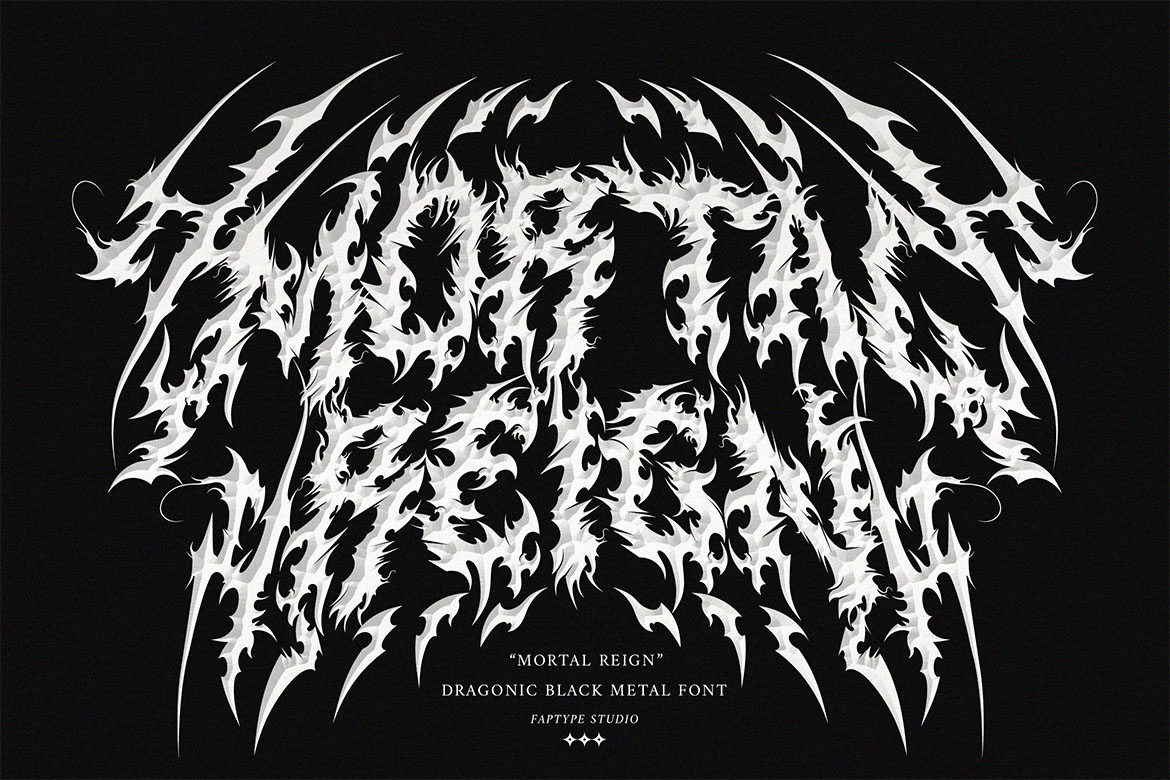
Mortal Reign roars with ferocity and mythic power. Its jagged, dragon-inspired letterforms bring legendary dark vibes to album covers, gothic merchandise, and fantasy metal branding.
Best for: Album covers, gothic merch, fantasy band branding.
9. Sunfyre | Brutal Black Metal Font
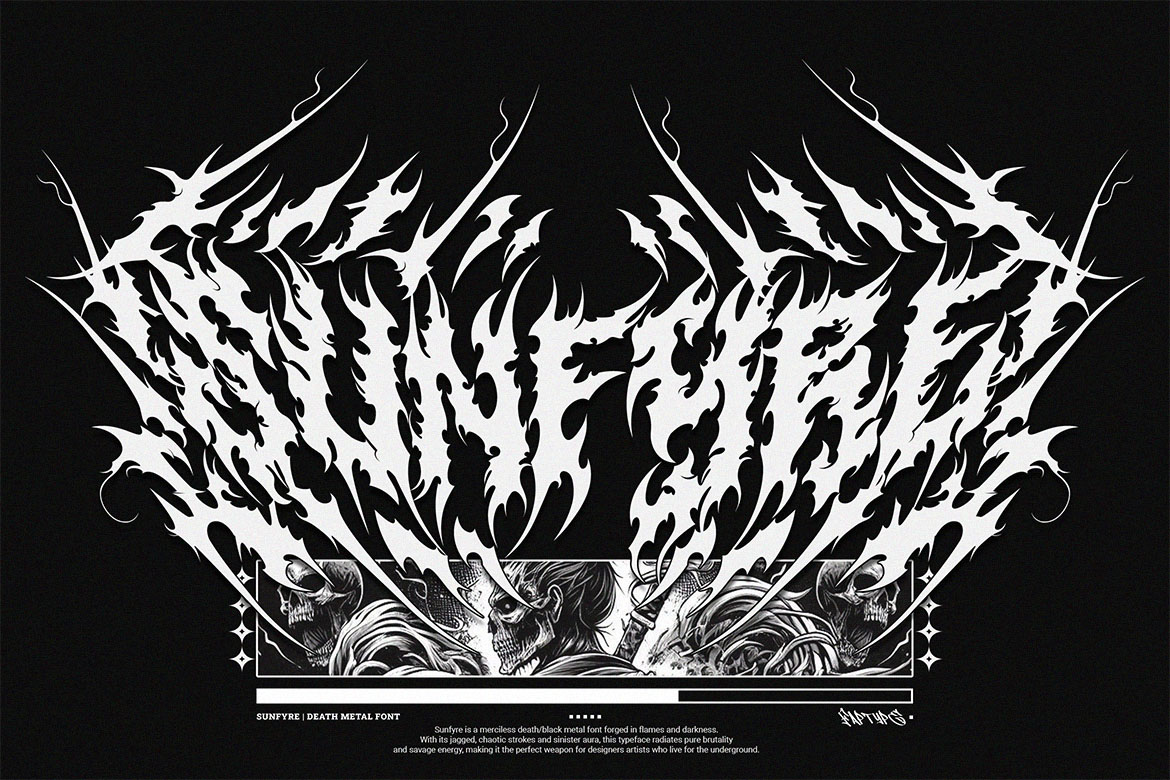
Sunfyre delivers massive strokes and scorching visual weight. Perfect for festival banners, deluxe album editions, and premium streetwear drops.
Best for: Banners, deluxe merch, festival graphics.
8. Syrax | Brutal Black Metal Font
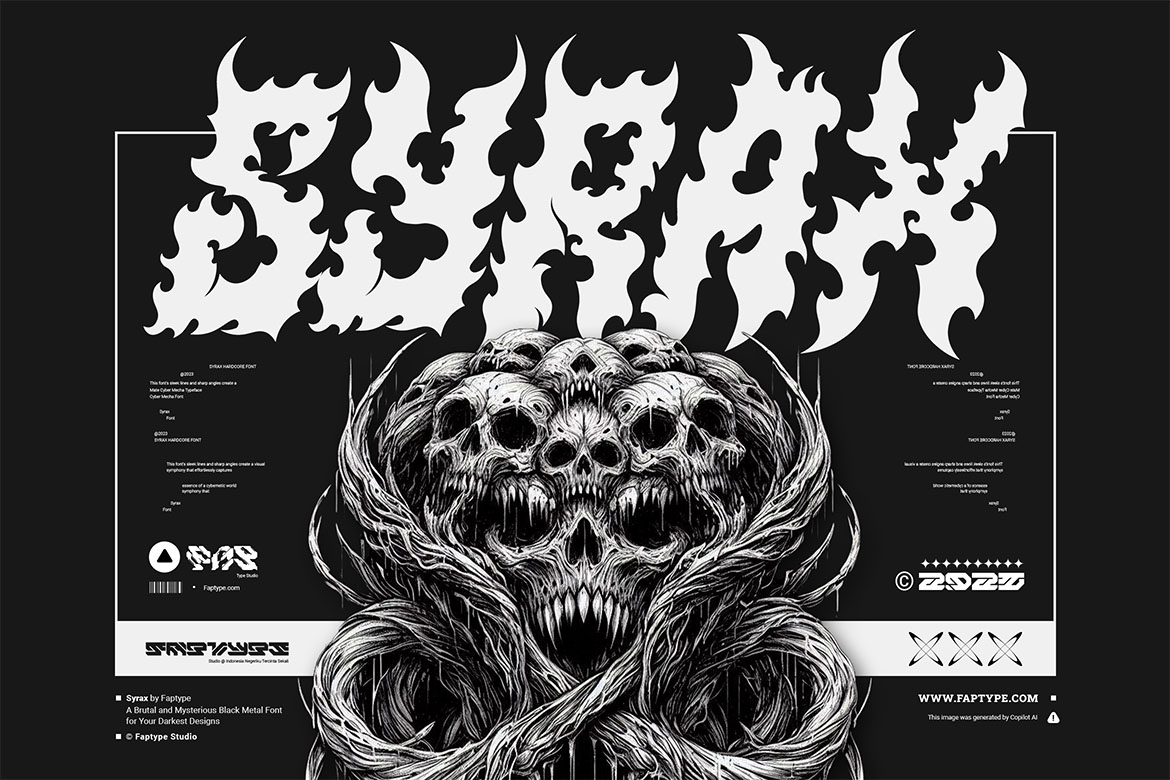
Syrax features chaotic branching forms and macabre silhouettes, making it a top pick for brutal logo commissions, monster-themed apparel, and high-contrast fantasy artwork.
Best for: Logos, apparel, fantasy-themed designs.
7. Mephisto | A True Black Metal Typeface
Mephisto embraces an occult and ceremonial black metal aesthetic with intricate detailing. Works wonderfully for high-level album production, tour posters, or dark brand visuals.
6. Syndrome | Condensed Black Metal Font
Syndrome is sharp, narrow, and highly adaptable. Its condensed structure is excellent for long titles, streetwear layouts, vertical designs, and product labels.
5. Vermithor | Fierce Black Metal Font
Vermithor feels wild, icy, and full of northern ferocity. Its chaotic spikes and branching shapes are ideal for atmospheric metal albums, ritualistic artwork, and outdoor gig promotions.
4. Balerion | The Ultimate Death Metal Font
Inspired by dragon mythology and dark fantasy, Balerion uses horned letterforms and razor-sharp silhouettes. Ideal for cinematic, powerful branding in premium merch and band visuals.
3. Hellfire Flames | Death Metal Font
Hellfire Flames features blazing, chaotic strokes with bold death-metal energy. Balances readability with brutality, making it suitable for modern metal album art and fiery merchandise.
2. Rusted Sabbath | Black Metal Font
Rusted Sabbath delivers the classic raw Scandinavian black metal feel. Eroded strokes and sharp terminals make it ideal for underground album covers, raw gig posters, and grim visual designs.
1. Black Dread | Elite Black Metal Typeface
Black Dread dominates with unmatched brutality and dark elegance. Despite its seemingly simple structure, it has proven premium enough to attract a $10,000 licensing deal with a major global apparel brand. Perfect for elite album art, band branding, and high-impact merchandise.
Conclusion
These Top 10 Black Metal Fonts are perfect for designers, musicians, and merch creators looking to make an extreme visual impact. From the raw ferocity of Rusted Sabbath to the elite sophistication of Black Dread, each font delivers a unique style suited for album covers, festival banners, merchandise, and dark branding.
FAQ
Q: What are Black Metal Fonts?
A: Fonts inspired by the extreme music genre, characterized by chaotic, jagged, and aggressive letterforms.
Q: Where can I use these fonts?
A: Album covers, posters, merchandise, branding, social media graphics, and more.